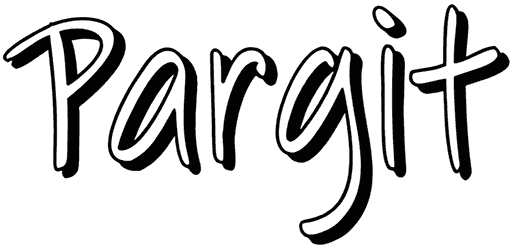
Pargit Font
Have you ever wondered about the best outline font for your poster, logo, or advertisement design? Pargit is the correct answer. This handwritten font is an embodiment of handmade that can add extra sparks to your projects and provide you with a way to be unique.